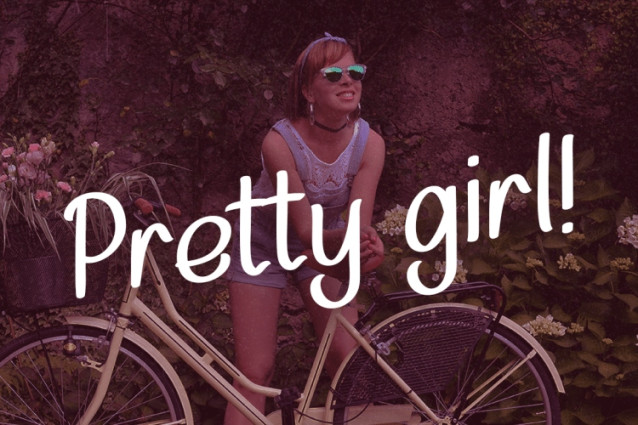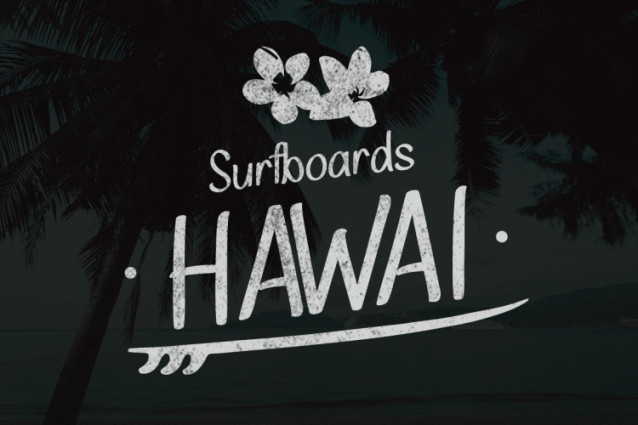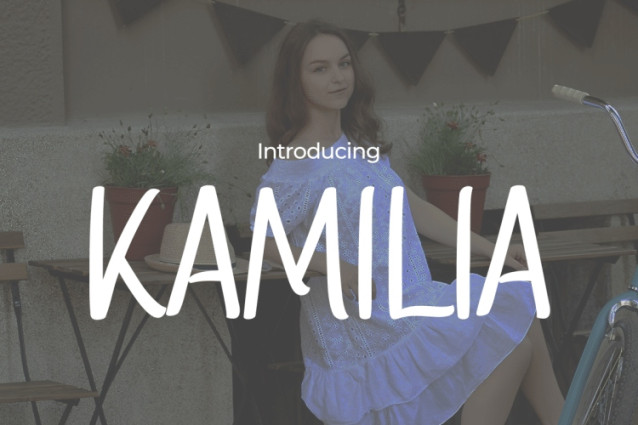
Kamilia – Modern Sans Serif Font
Kamilia – Modern Sans Serif Font  is a modern, playful typeface that adds charm and personality to any design. With its clean lines and rounded edges, it offers a friendly, inviting feel. As a result, this font is perfect for both digital and print projects, making your content more approachable and visually appealing.
Moreover, Kamilia’s versatility makes it ideal for many uses. It is simple yet stylish, ensuring readability while giving off a contemporary look. The rounded edges add warmth, making it great for projects that aim to connect emotionally. Therefore, Kamilia works well for social media posts, blogs, product labels, and more.